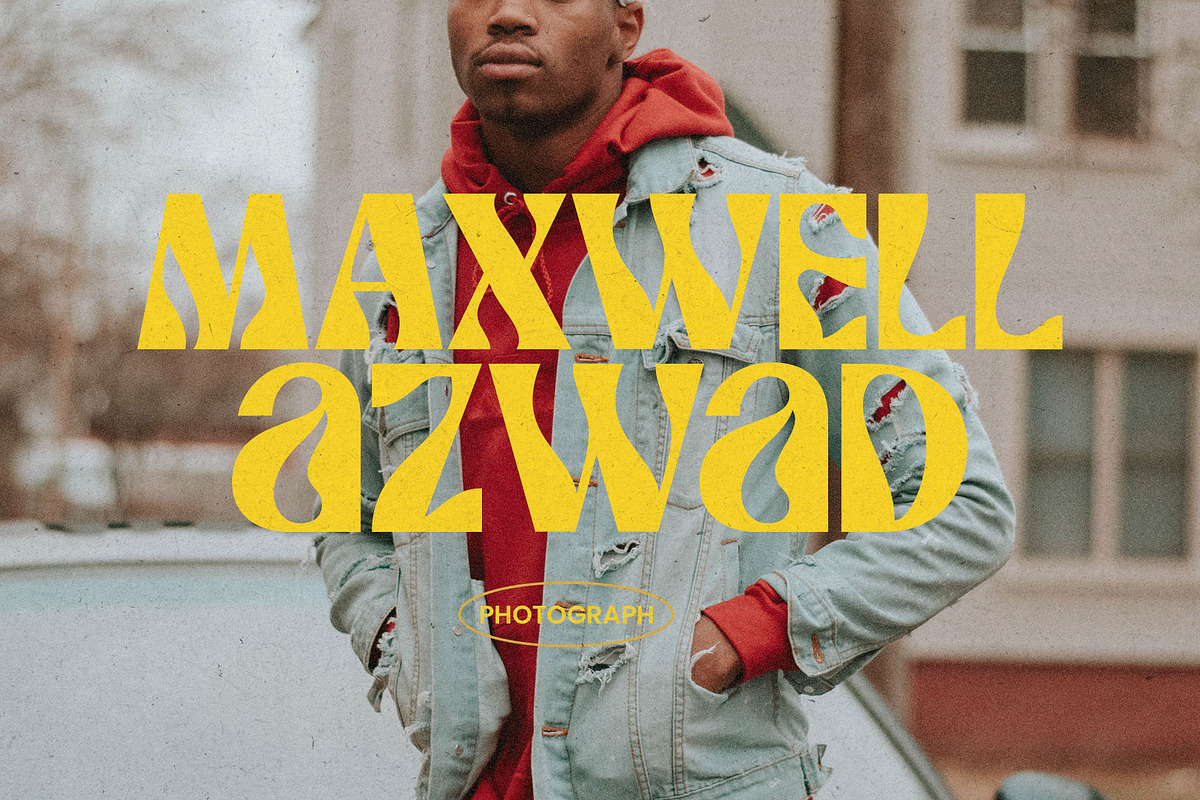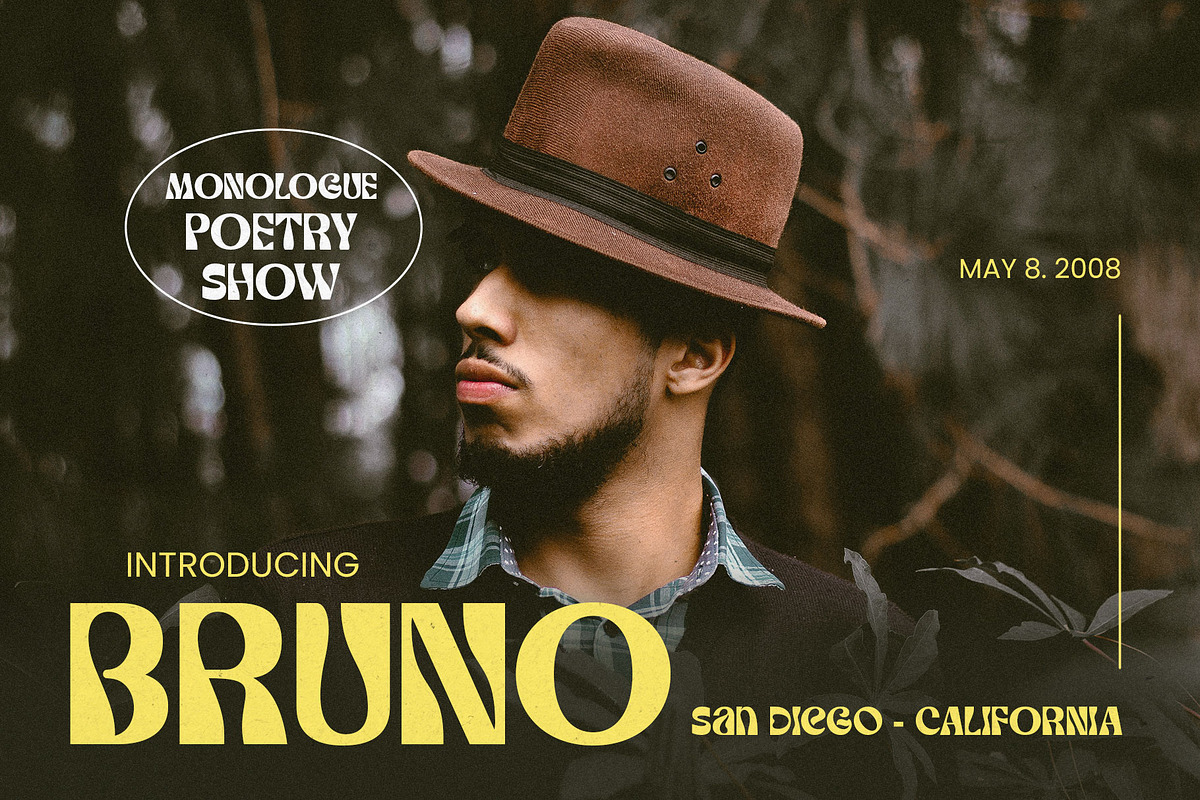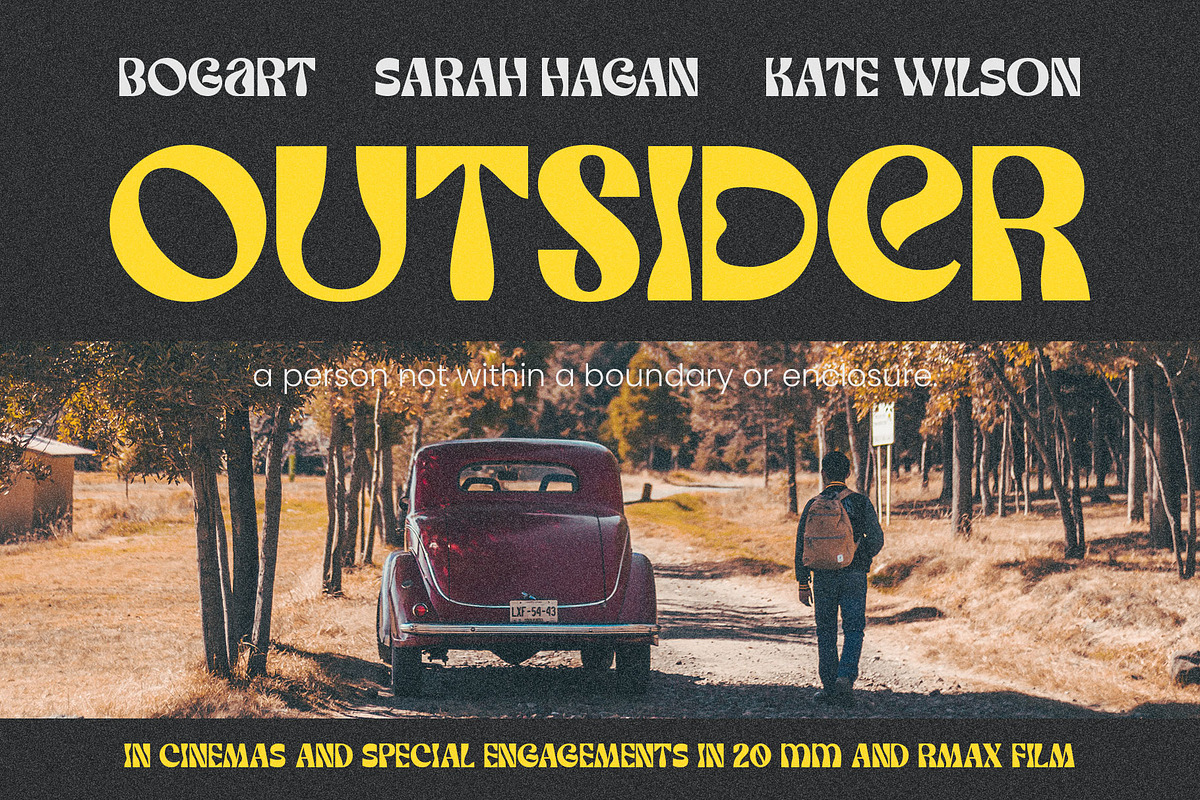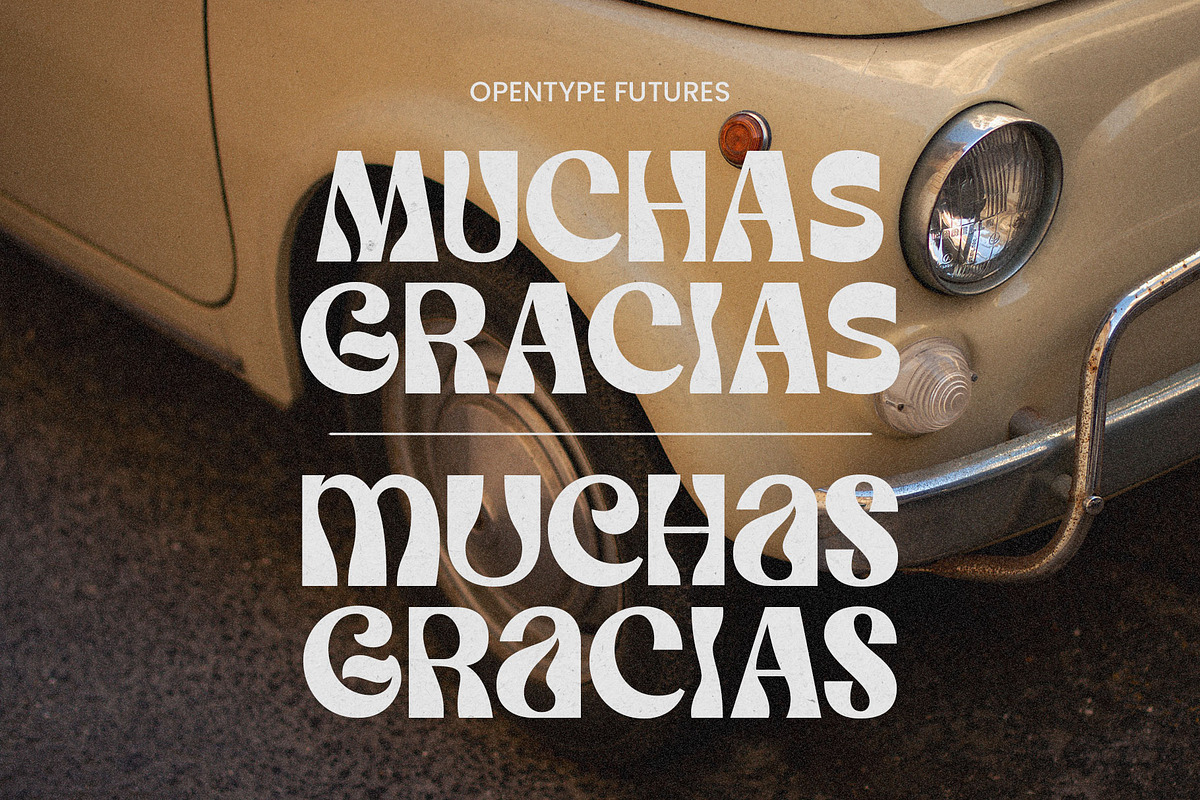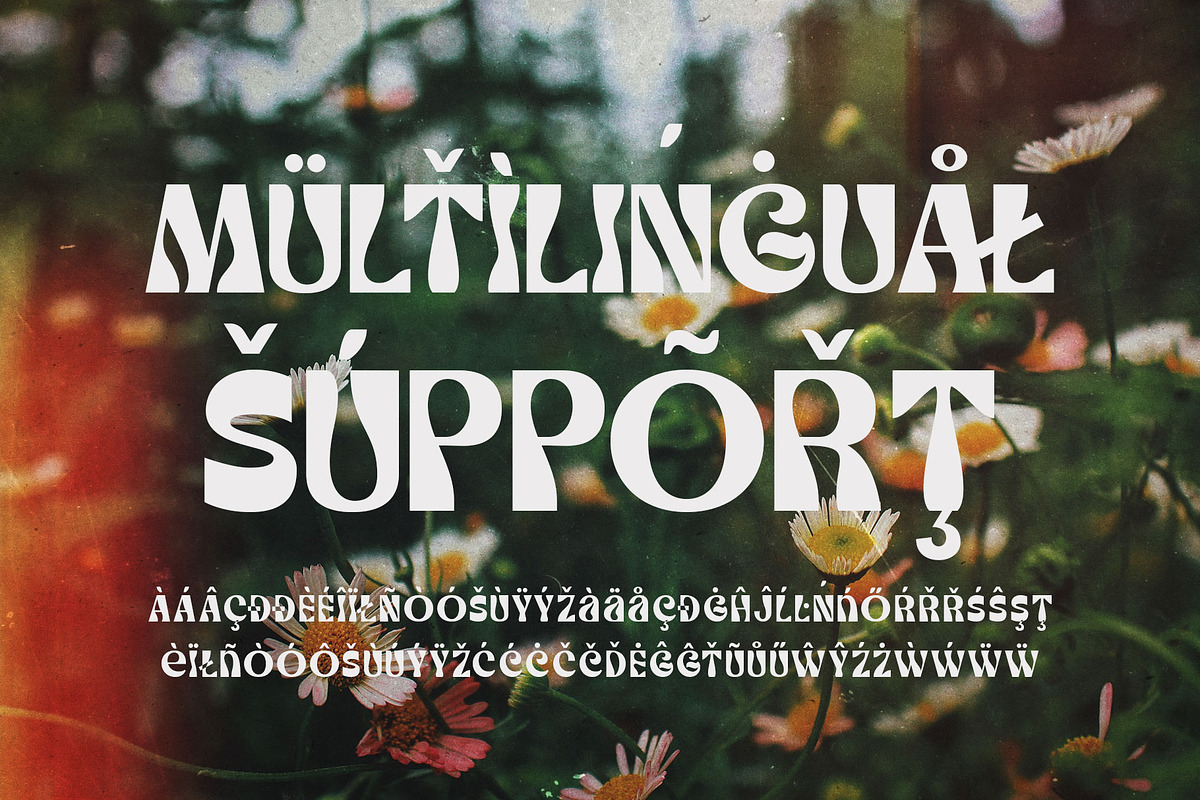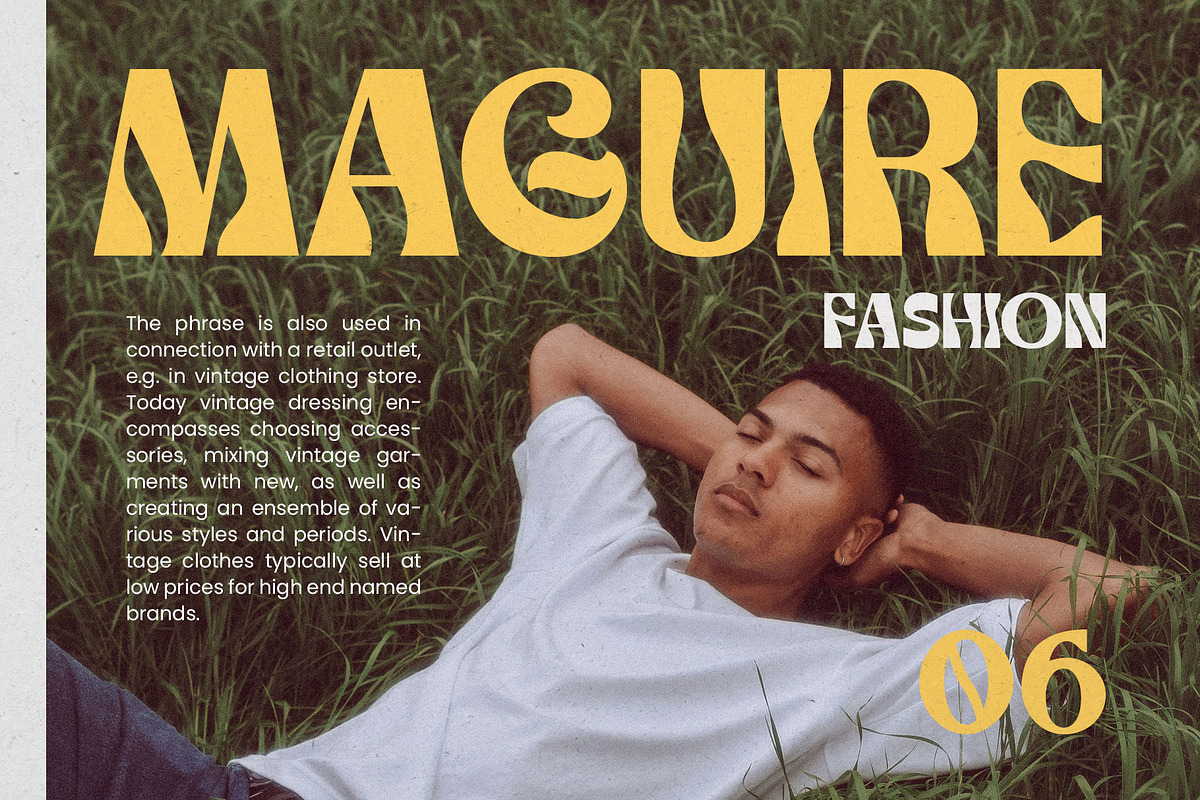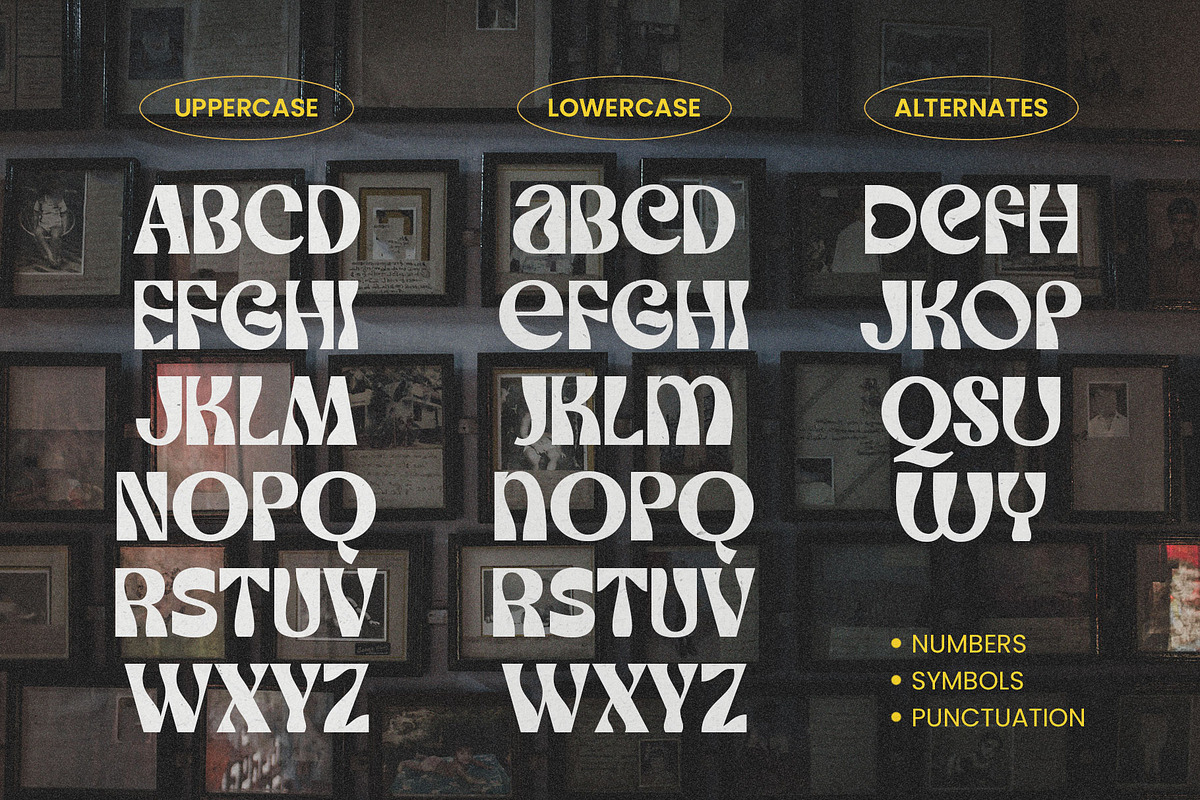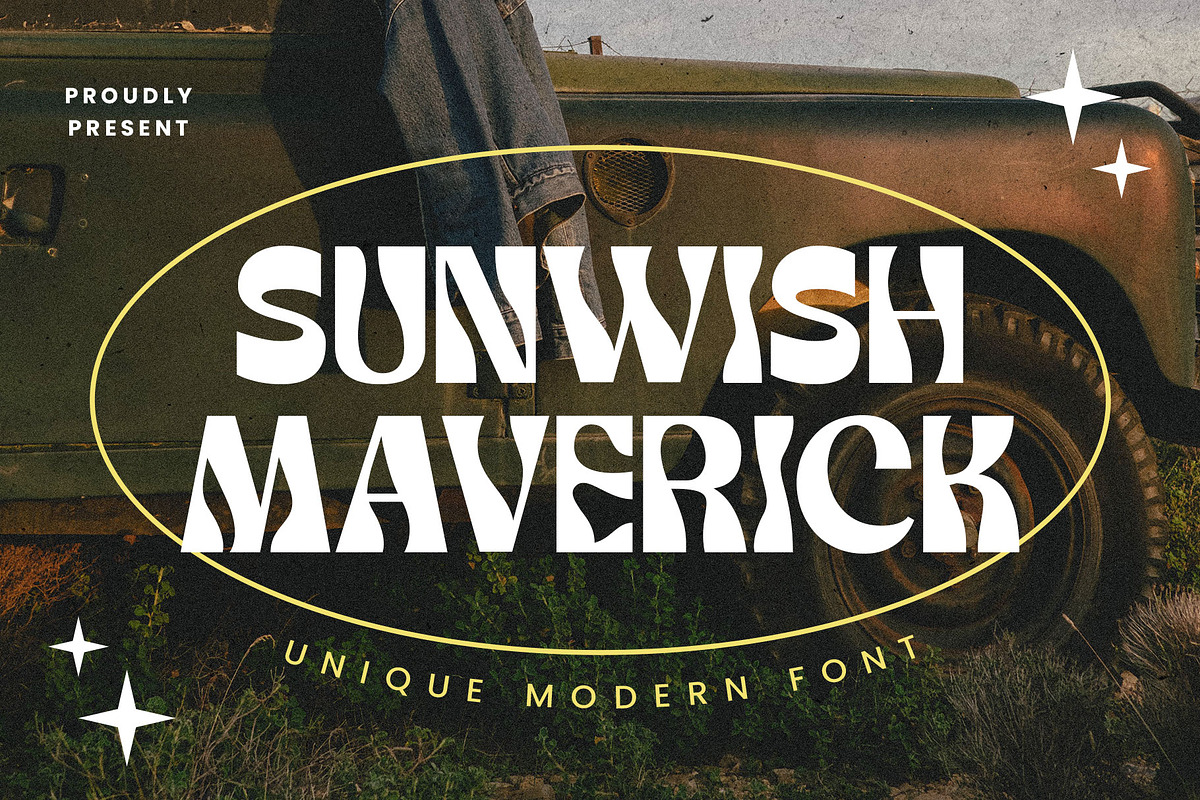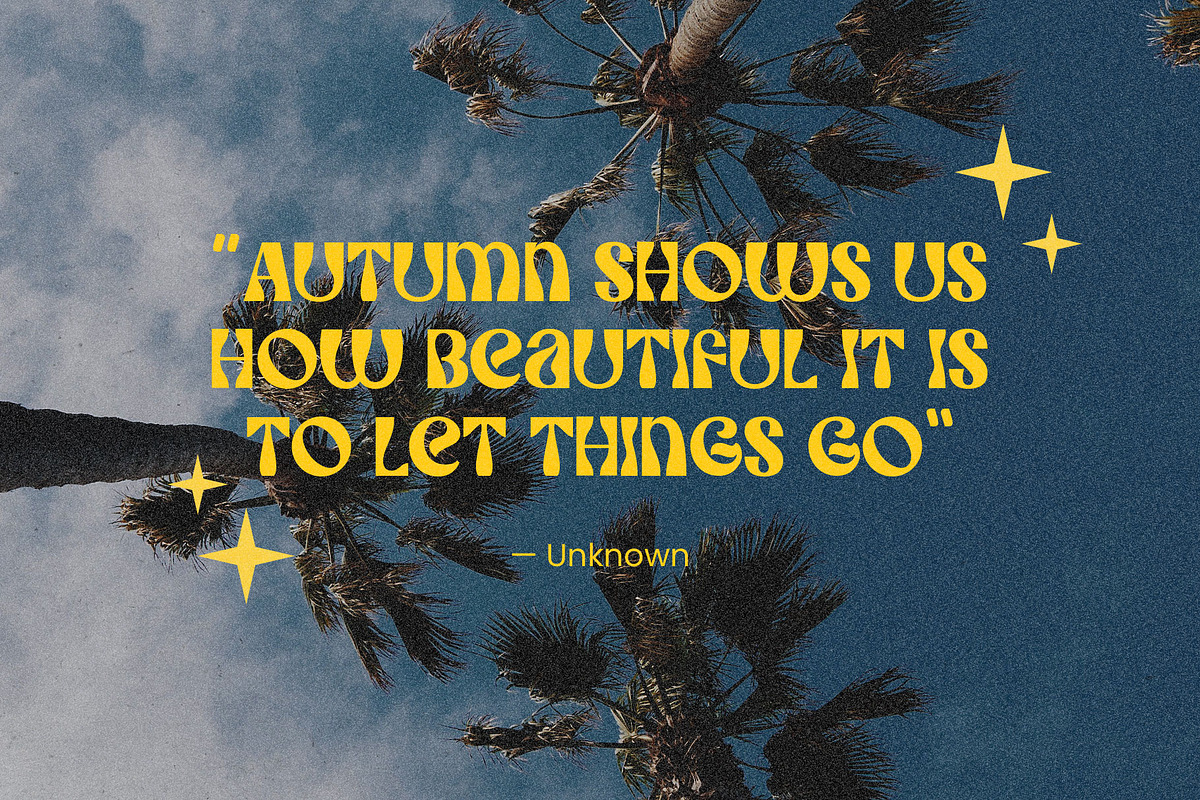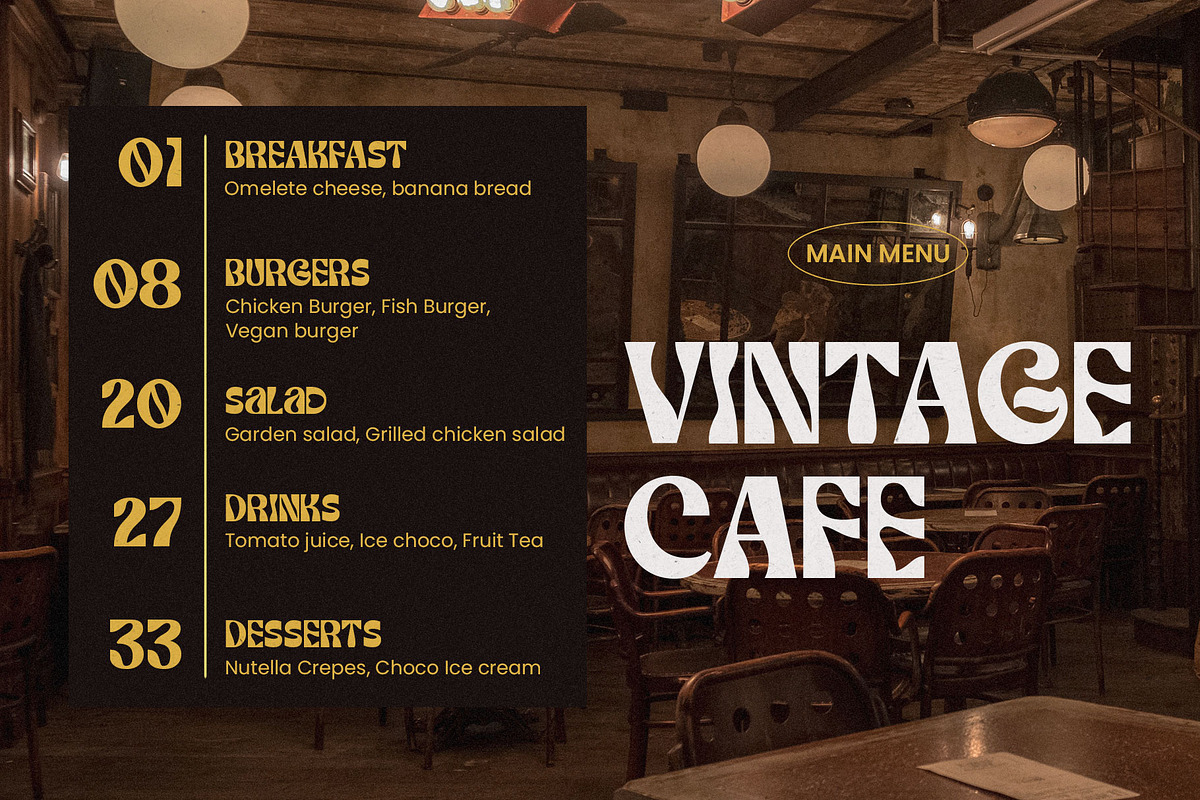
Sunwish Maverick - Experimental
Sunwish Maverick is an experimental psychedelic typeface with playful thick-thin curves that looks dynamic for your vintage design. Inspired by art nouveau typography and modern bold serif that you can apply for display, headline, groovy posters, retro flyers, decals, fashion, magazines, and many more!
Sunwish Maverick is an All-caps font that consists of alternates characters you can mix and match and PUA Encoded so you don't need any software to access the features.
- Numbers & punctuations
- Stylistic alternates
- Multilingual characters.